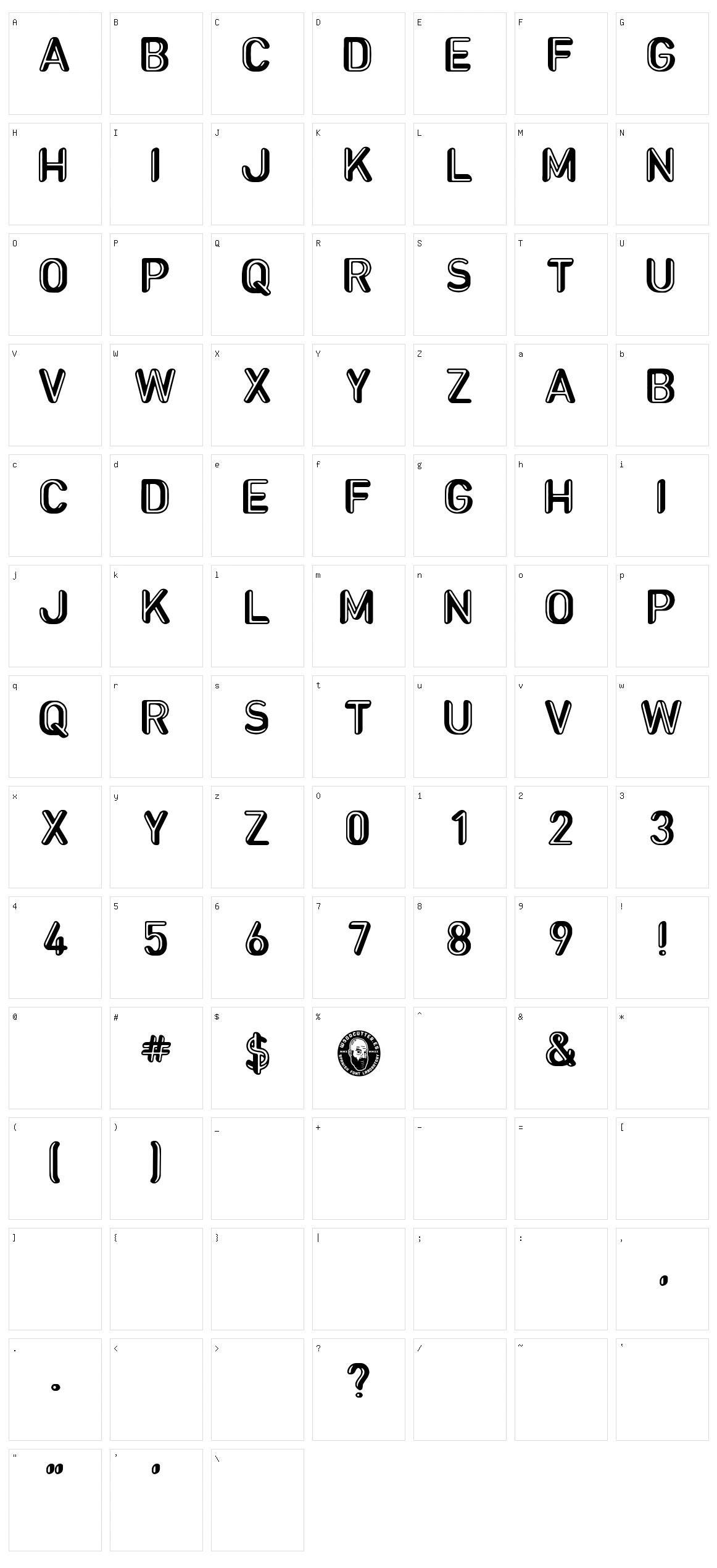
The free font Royal Dimensions is carefully designed by Woodcutter, showcasing a thoughtful balance of creativity and usability and falls under the Groovy font style. When you download the ZIP file, it contains only 38.96 KB of font files, making it lightweight and quick to download. Please review the license details below to understand permitted usage and distribution rights. If license information is not available, we recommend using this font for personal projects only or contacting the author directly for commercial usage permissions.